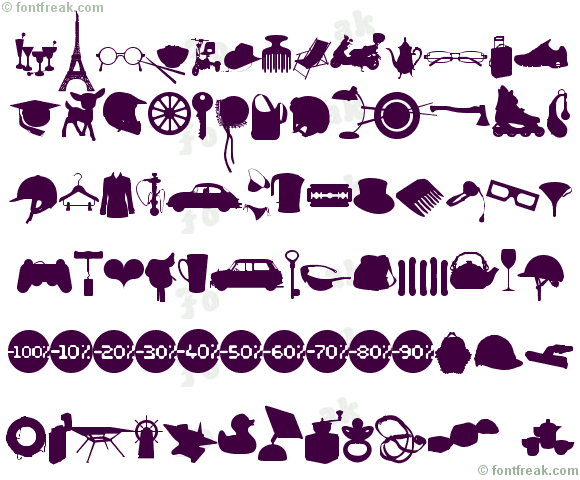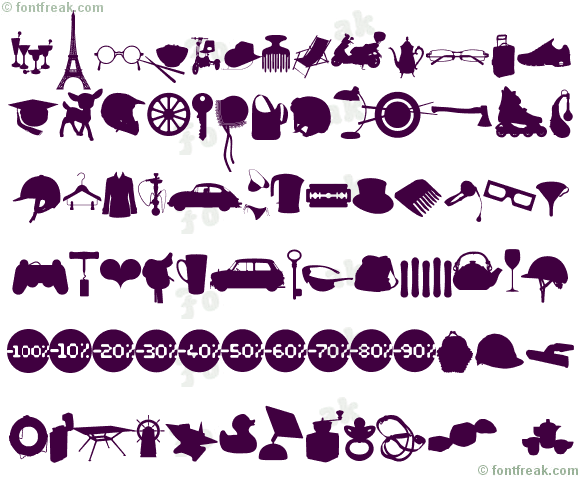
WCSoldOutABta
WC Sold Out A Bta
WCSoldOutABta by Christophe Féray is a captivating decorative font that brings a unique flair to any design project. This font showcases a bold, eye-catching style, characterized by its playful and artistic elements. The strokes exhibit a varied weight, creating a dynamic visual experience, while the spacing is thoughtfully designed to enhance readability, making it a versatile choice for various applications. The decorative elements lend a whimsical charm, perfect for projects that seek to stand out.
With its distinctive style, WCSoldOutABta is ideal for a range of creative uses. It works exceptionally well for wedding invitations, where its artistic flair adds a personal touch to the occasion. Additionally, it can be effectively utilized in movie posters, capturing attention with its bold aesthetics and unique character. Restaurant menus also benefit from this font, providing an inviting and modern look that can enhance the dining experience. Content creators will find it valuable for social media graphics, where visual appeal is crucial in engaging audiences. Graphic designers, small business owners, and creative professionals alike will appreciate the versatility and charm of this font.
One of the standout features of the WCSoldOutABta font is its ability to combine humor and elegance, making it a joyful addition to any project. Its unique design helps to convey a sense of creativity and fun, allowing users to express their individuality. For anyone looking to elevate their design work, the WCSoldOutABta font free download is an excellent option that provides both style and functionality. With this font, your projects will not only communicate effectively but also leave a lasting impression.